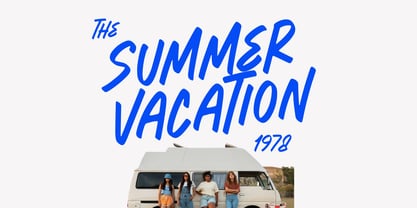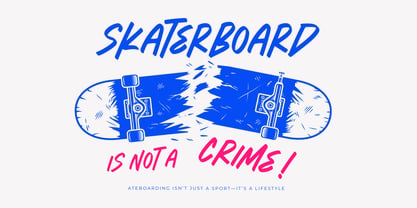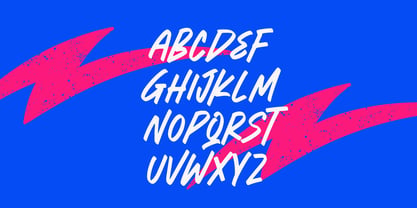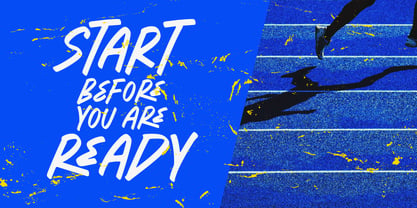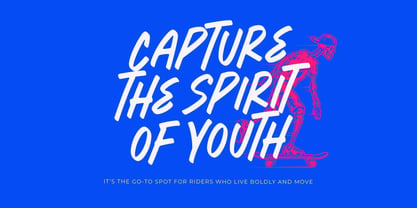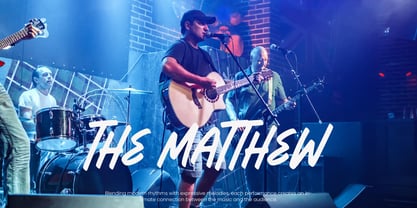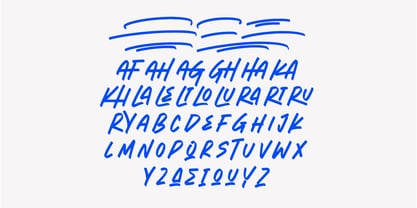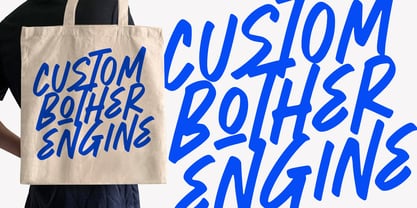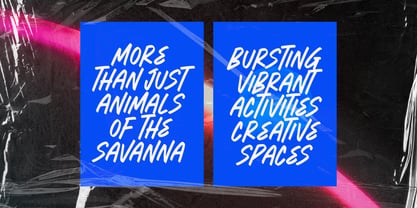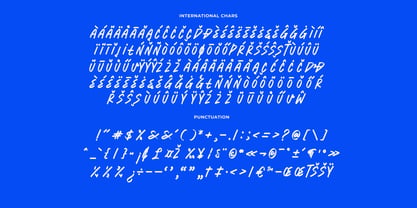
Jorhand Crown
by Letterena Studios
The Jorhand Crown Font Family was designed by Heru Utama Putra and published by Letterena Studios. Jorhand Crown contains 2 styles and family package options. More about this family
Jorhand Crown is a bold display brush font crafted with energetic strokes and a raw street-style attitude. Its sharp, confident brush movements make it perfect for urban branding, sports posters, youth apparel, music covers, skate culture visuals, and any project that needs a powerful, rebellious handwritten look. With 18 ligatures and 33 alternates, this font gives you flexibility to create dynamic, expressive typography that instantly grabs attention and amplifies your design’s impact.